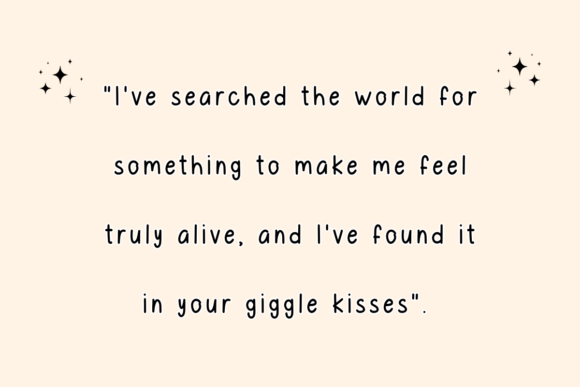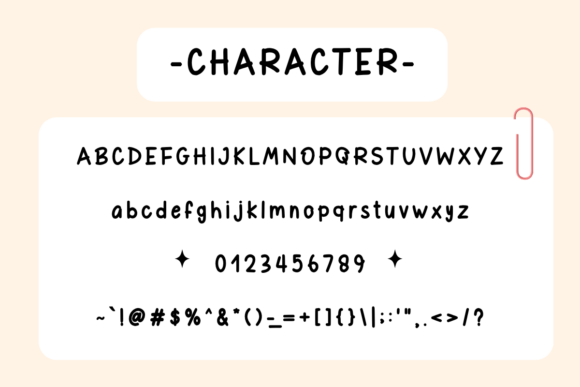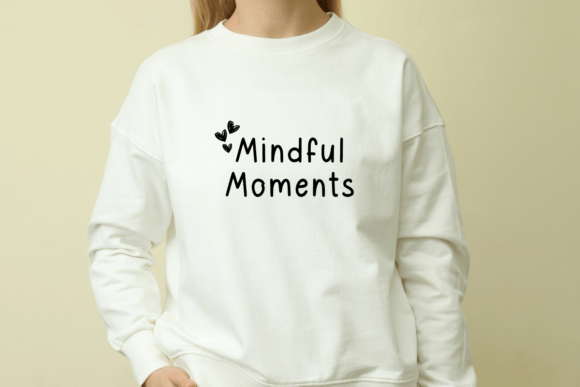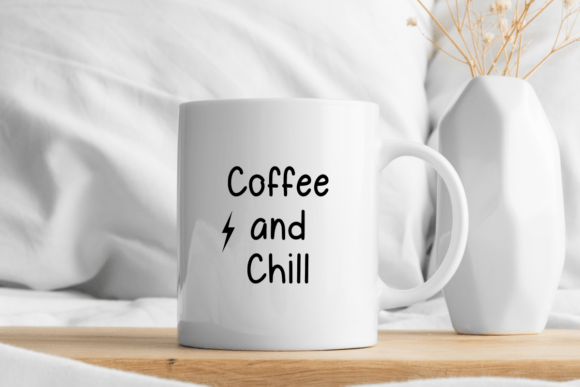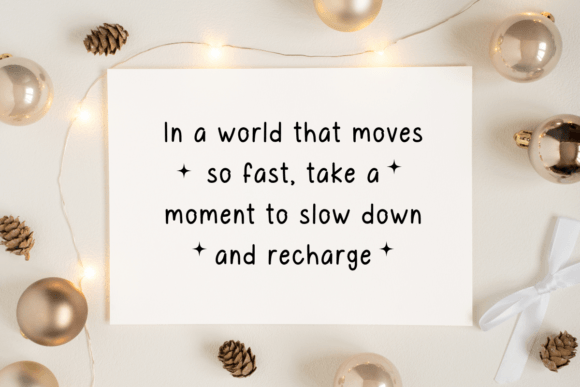
Introducing Giggle Kisses Font: The Perfect Addition to Your Design Arsenal
Are you a designer, crafter, or DIY enthusiast looking for a font that can add a touch of whimsy and playfulness to your projects? Look no further than Giggle Kisses Font, a fun and cute handwritten sans serif font that’s perfect for a wide range of applications.
What is Giggle Kisses Font?
Giggle Kisses Font is a unique and charming font that’s designed to bring a smile to your face. With its handwritten sans serif style, it’s ideal for creating eye-catching and engaging designs that are perfect for memos, journals, notes, planners, and more.
Uses for Giggle Kisses Font
Giggle Kisses Font is an incredibly versatile font that can be used for a wide range of projects, including:
- Memos and notes: Add a personal touch to your notes and memos with Giggle Kisses Font.
- Journals and planners: Create a one-of-a-kind journal or planner with this fun and playful font.
- Greeting cards and invitations: Make your greeting cards and invitations stand out with Giggle Kisses Font.
- Scrapbooks and paper crafts: Add a touch of whimsy to your scrapbooks and paper crafts with this delightful font.
- Interior KDPs and low-content books: Use Giggle Kisses Font to create engaging and visually appealing interiors for your KDPs and low-content books.
- Daily planners and to-do lists: Create a daily planner or to-do list that’s both functional and fun with Giggle Kisses Font.
- Notebook paper and paper sheets: Add a touch of personality to your notebook paper and paper sheets with this charming font.
- Monthly and weekly planners: Create a monthly or weekly planner that’s both stylish and functional with Giggle Kisses Font.
- Journal templates and KDP interiors: Use Giggle Kisses Font to create unique and engaging journal templates and KDP interiors.
Why Choose Giggle Kisses Font?
So why choose Giggle Kisses Font for your next project? Here are just a few reasons:
- Unique and playful style: Giggle Kisses Font has a one-of-a-kind style that’s sure to add a touch of whimsy to your designs.
- Easy to read: Despite its playful style, Giggle Kisses Font is easy to read and understand, making it perfect for a wide range of applications.
- Versatile: Giggle Kisses Font can be used for a wide range of projects, from memos and notes to greeting cards and invitations.
- Perfect for designers and crafters: Whether you’re a designer, crafter, or DIY enthusiast, Giggle Kisses Font is the perfect addition to your design arsenal.
Tips for Using Giggle Kisses Font
Here are a few tips for getting the most out of Giggle Kisses Font:
- Experiment with different colors: Giggle Kisses Font looks great in a variety of colors, so don’t be afraid to experiment and find the perfect hue for your project.
- Pair with other fonts: Giggle Kisses Font pairs well with other fonts, so try combining it with a serif font for a unique and interesting look.
- Use it for headings and titles: Giggle Kisses Font is perfect for headings and titles, so use it to add a touch of personality to your designs.
- Don’t be afraid to get creative: Giggle Kisses Font is a versatile font that can be used in a wide range of applications, so don’t be afraid to get creative and try new things.
In conclusion, Giggle Kisses Font is a fun and playful handwritten sans serif font that’s perfect for designers, crafters, and DIY enthusiasts. With its unique and playful style, ease of use, and versatility, it’s the perfect addition to your design arsenal. So why not give Giggle Kisses Font a try today and see how it can add a touch of whimsy and personality to your designs?